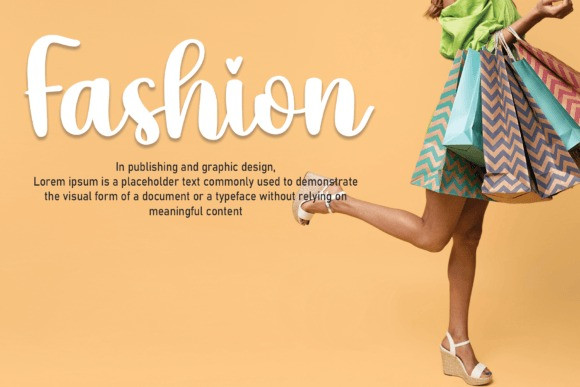
Handcraft Script Font, perfect for wall displays, wedding invitations, social media post logos, advertisements, product packaging, product designs, labels, photography, watermarks, invitations, stationery, and any project that requires a handwritten taste.